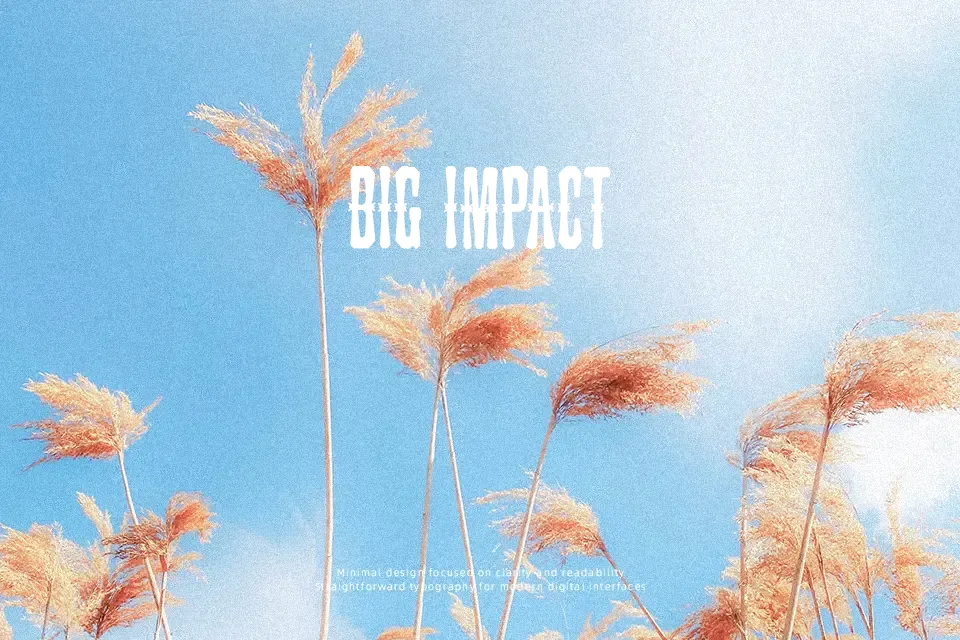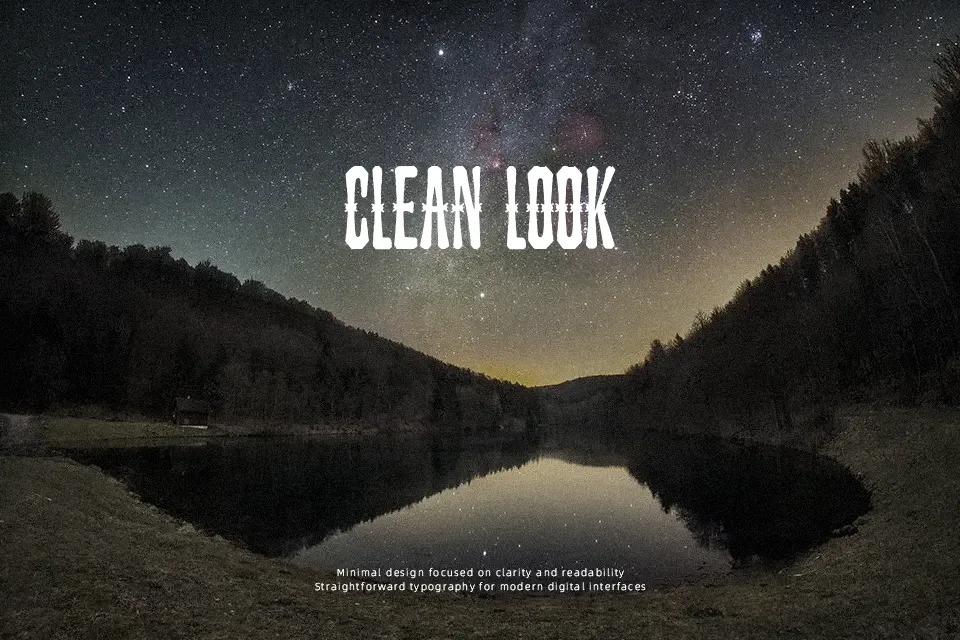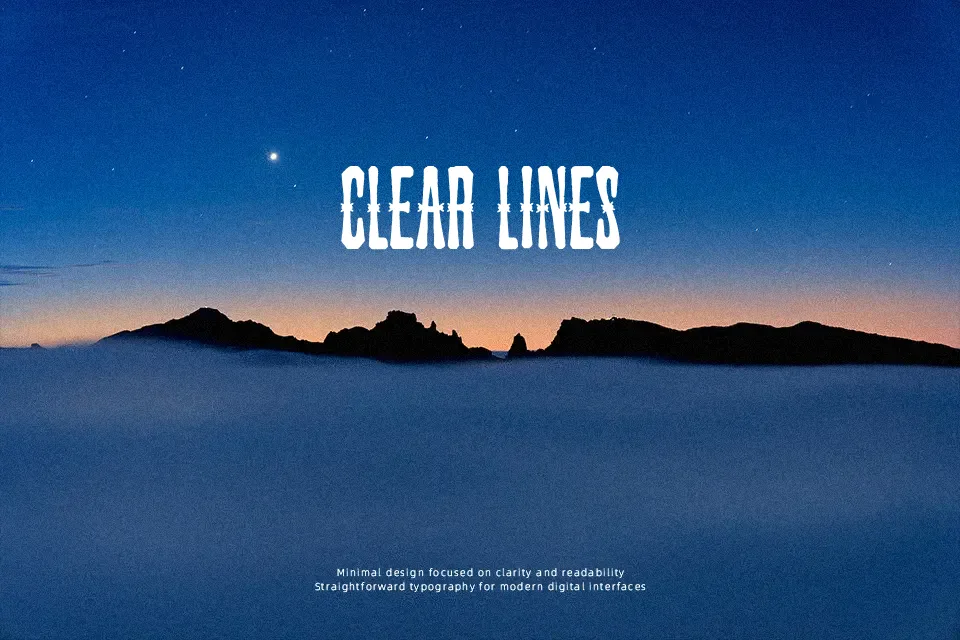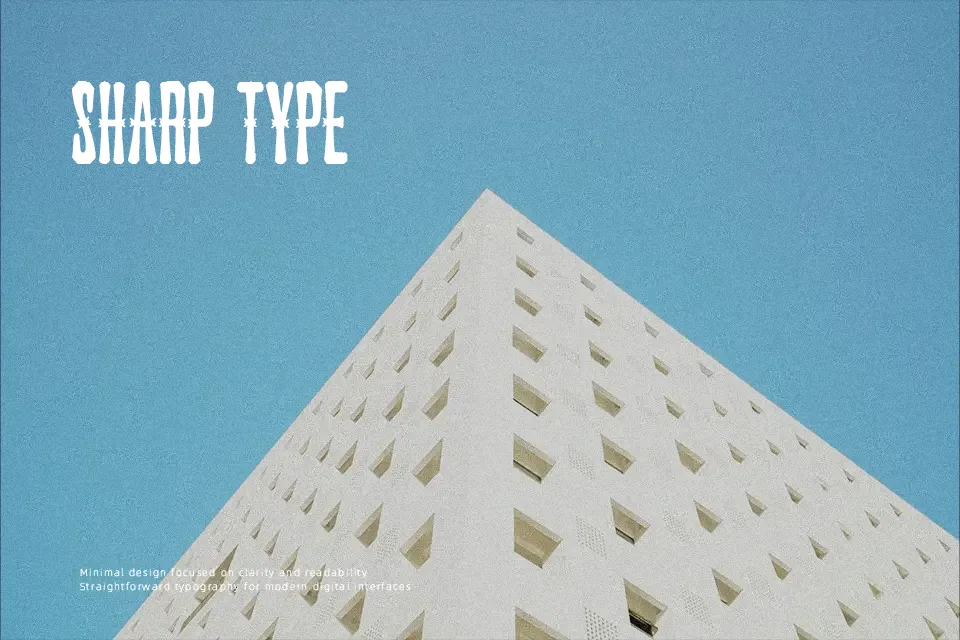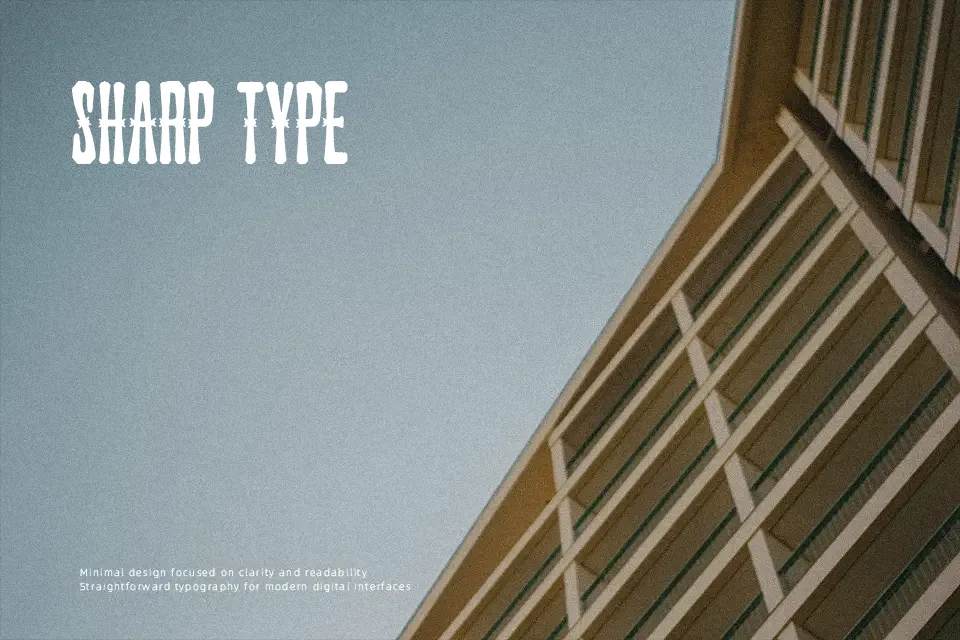
Snakebite Saloon Font
Snakebite Saloon Font uses decorative Western-style letterforms with a strong display-oriented presence. Its stylized construction and bold visual rhythm make short words, names, and headlines more effective than dense text settings. The design suits themed signs, poster titles, labels, and identity work that needs an old-western atmosphere. Spacing should be handled carefully when setting longer lines, as the ornamental forms can make compact text feel busy. The typeface reads most clearly at larger sizes, where its distinctive details have room to separate and remain recognizable; it is less comfortable for continuous reading.
Best For: western bar signage,vintage poster headlines,themed product labels,restaurant menu headers
Perfect for logo, packaging, and poster, with a bold and decorative style.